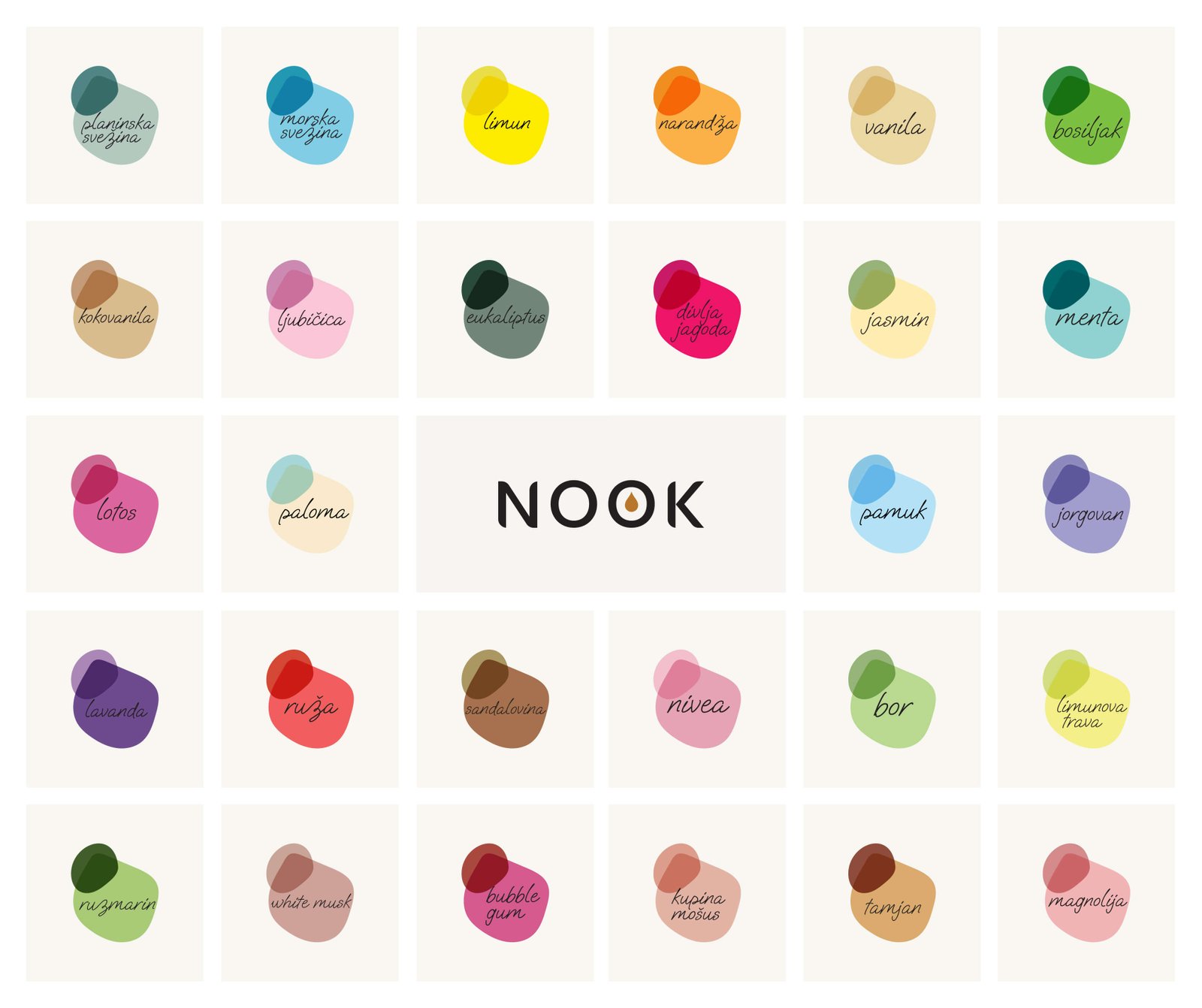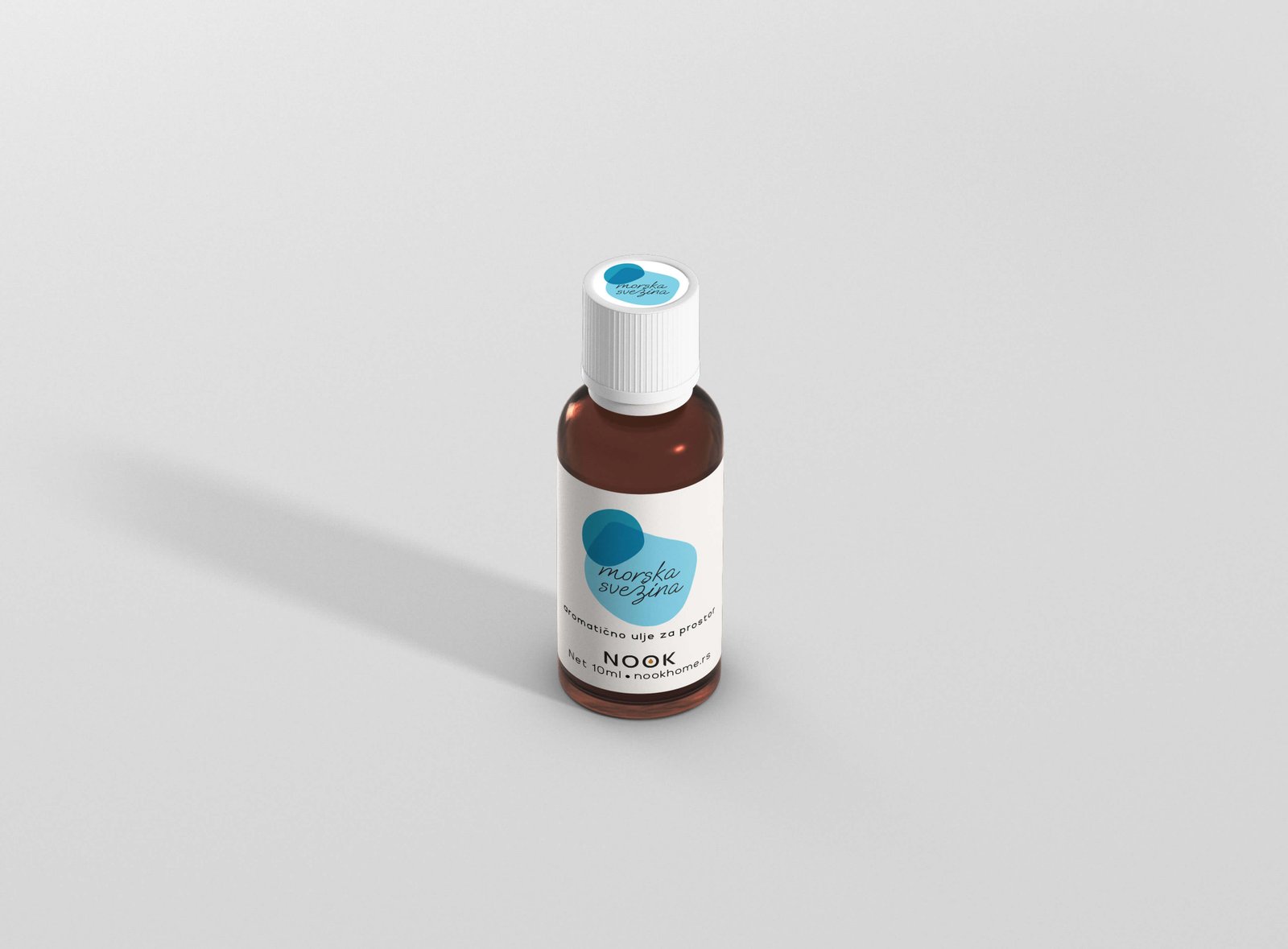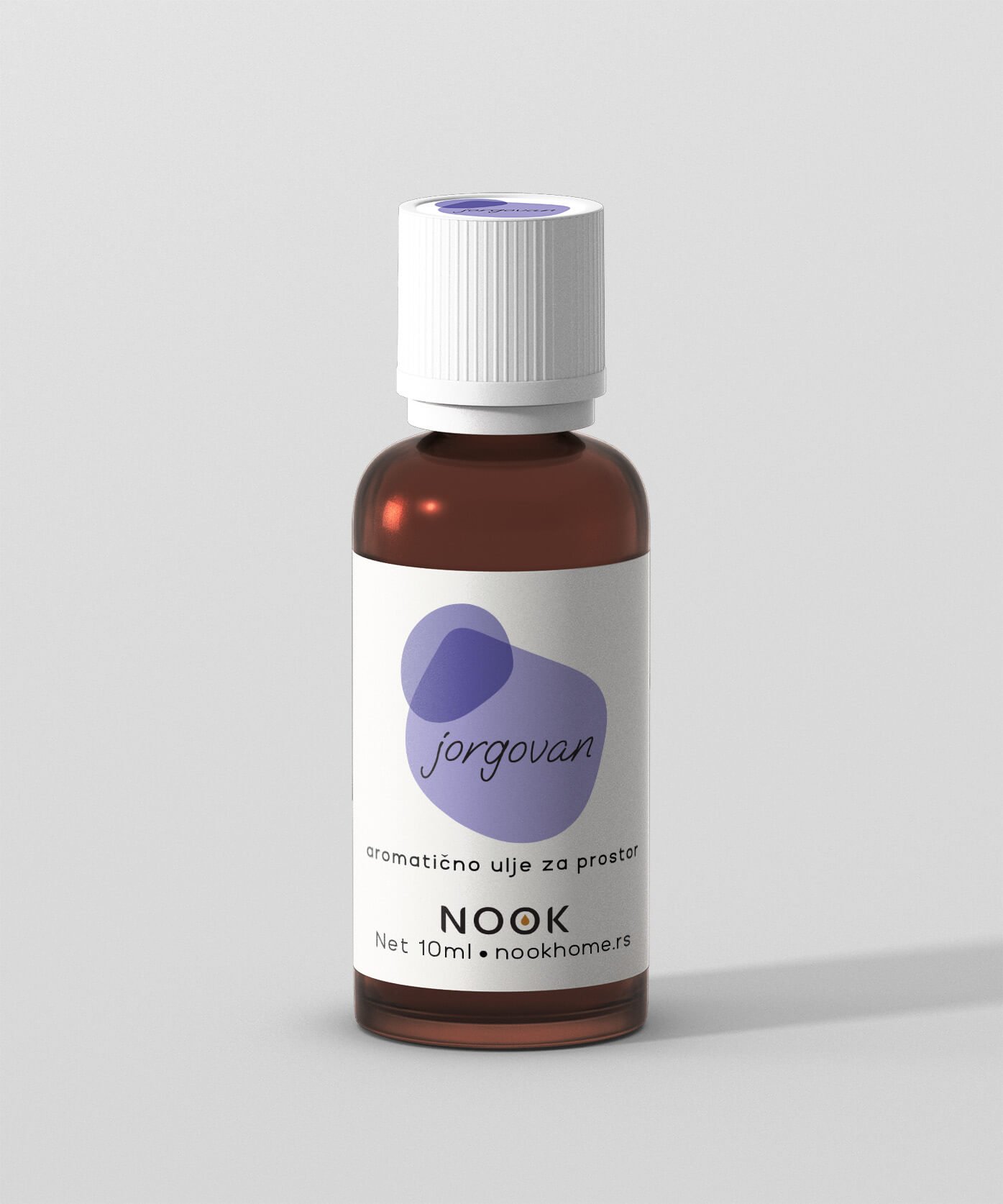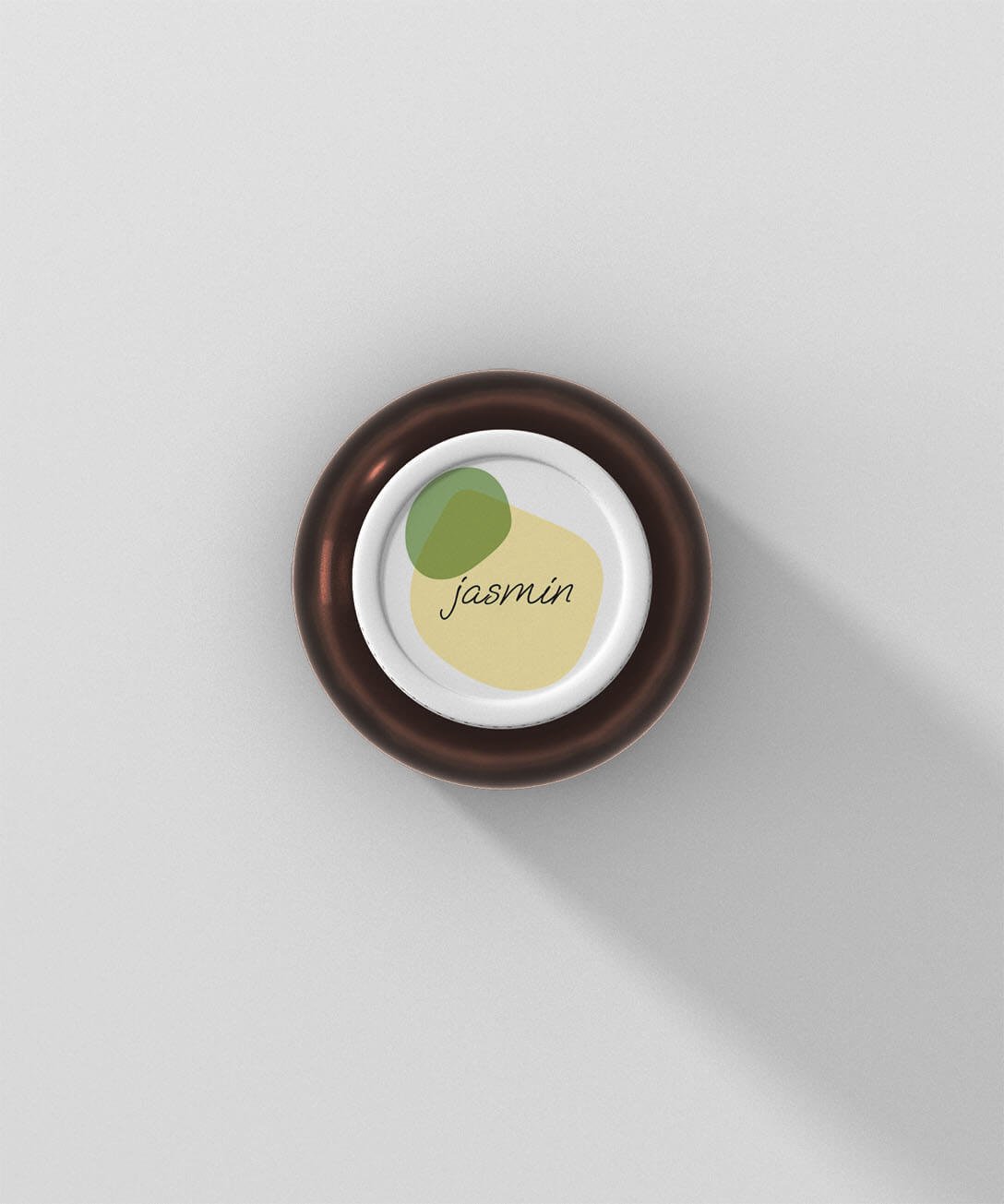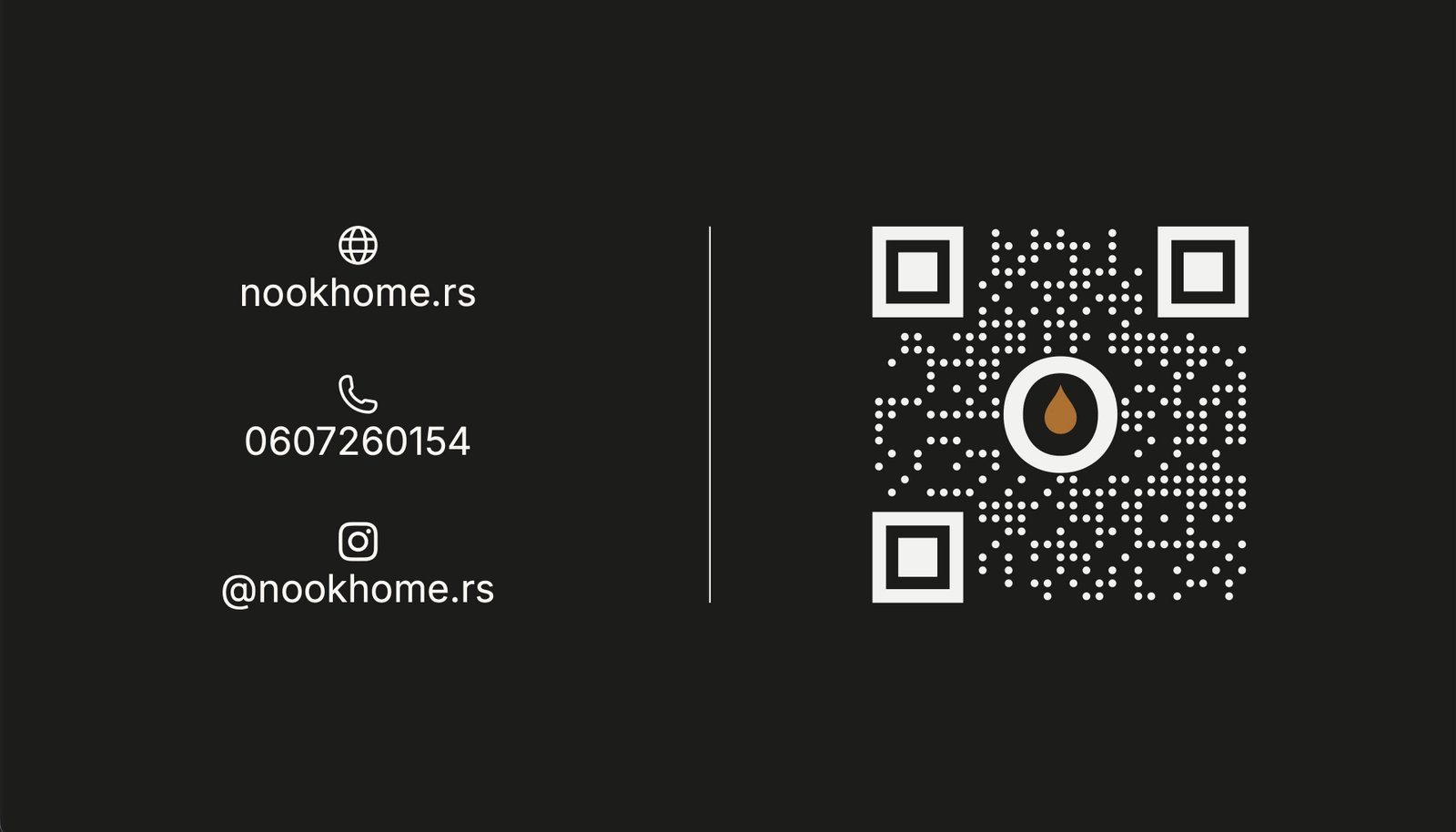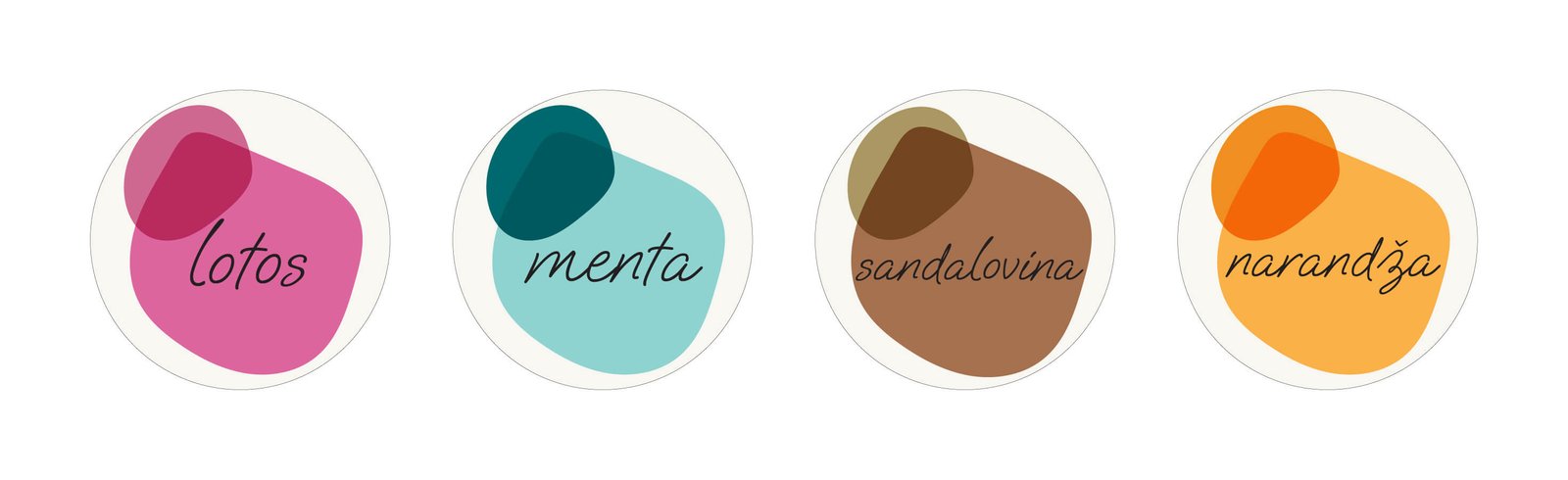
Nook
A small business selling aromatic oils had a product worth loving - but nothing to show for it. No name, no logo, no system. Just amber glass bottles and handwritten sticky labels. We built everything from scratch: the name, the identity, the packaging system, and the webshop.
It started with a problem nobody asked us to solve.
It ended with a brand people remember.
The origin
A small business was selling aromatic oils at local markets. Same amber bottles everyone uses, handwritten sticky labels telling you which scent was inside. It looked like price tags at an old supermarket. The product was good. The packaging wasn't telling that story.
We started with a label and a cap sticker - so customers could identify scents from the top of the bottle without picking each one up. Sent to print, came back perfect. A few months later, people were asking how to buy more, where to find them online. Demand had outgrown the brand. That's when we built everything else.
Nook
/ nʊk / - a cozy corner; a sheltered, intimate space.
English · easily pronounced in Serbian
With no existing name to work from, we started from scratch. The name needed to feel warm, intimate, and easy to say - in both English and Serbian. Something that could sit on a bottle, a website, and an exhibition stand without explanation.
Nook checked everything. It evokes exactly what a good scent does: it wraps you in a moment, turns any space into somewhere you want to stay. And it works phonetically in Serbian without translation - rare for an English word.
Logo
Finding the mark.
The name was clean and confident - the mark needed to match. We explored different ways to bring the product itself into the wordmark. An oil drop replacing the second O was the answer: simple, literal, and immediately readable. The amber color of the drop mirrors the actual oil in the bottle.
Early exploration → drop placement → weight & color → final mark.
Identity system
28 scents. 28 identities. One system.
Every oil needed its own personality without breaking the family. The solution was an organic blob system - each scent gets a unique shape and color palette, inspired by the scent itself. Jorgovan is lavender-purple. Limun is bright yellow. Menta is cool teal. Together they create variety; individually, each one is instantly ownable.
The full identity system - 28 scents, 28 unique color expressions.
Packaging
From label to cap.
The system had to solve a practical problem: customers browsing a table of bottles needed to identify scents at a glance, even from above. A label on the bottle. A matching sticker on the cap. Pick it up or look down - the scent is always visible.
Label system - four scents shown
Cap stickers - same scents, circular format
Top view - identifiable at a glance
Packaging detail
Small bottle. Big personality.
Each 10ml bottle carries its blob front and center - the shape cropped by the label edges, the scent name in the script font. The design system holds at any size, from the label artwork to the cap sticker to the webshop thumbnail.
The system scales from a 10ml bottle to an exhibition stand - same blobs, same logic, same instant recognition.
Collateral
Every touchpoint, covered.
Business card - front & back with branded QR code
Exhibition stand - identity at street scale
Web
The brand online.
With demand growing and customers asking where to order, a webshop was the natural next step. Built on WooCommerce, the brand identity carries through - every product listed with its bottle mockup, scent name, and blob color. From bottle to basket in three clicks.
In context
The product in the wild.
"People started coming back asking for specific scents, looking for us online, wanting more. We hadn't done any marketing. The brand did that."
- Nook, Serbia